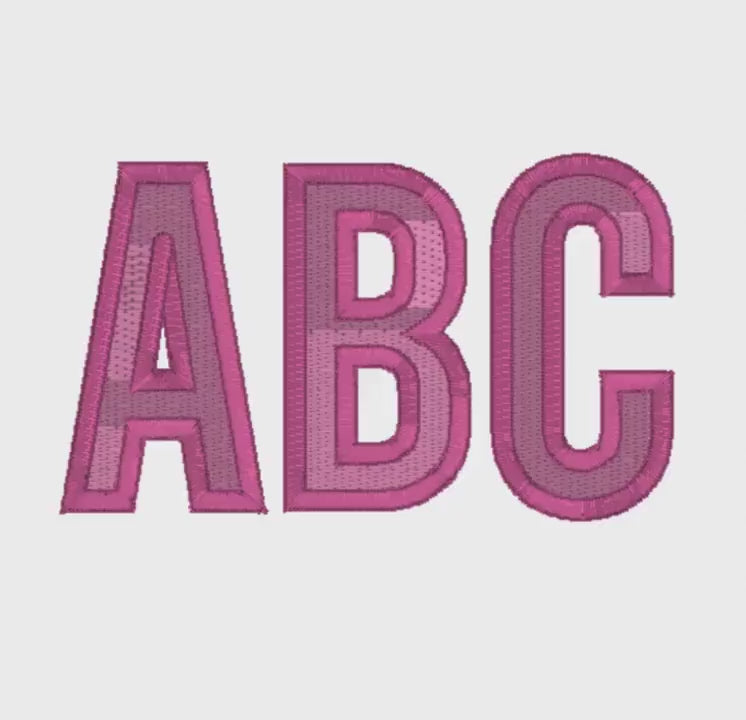
Each letter is approx. 3 3/8-3 1/2" tall and 1 5/16-2" wide
2 Colors can be used for each letter or you can opt to use the same color for the outline.